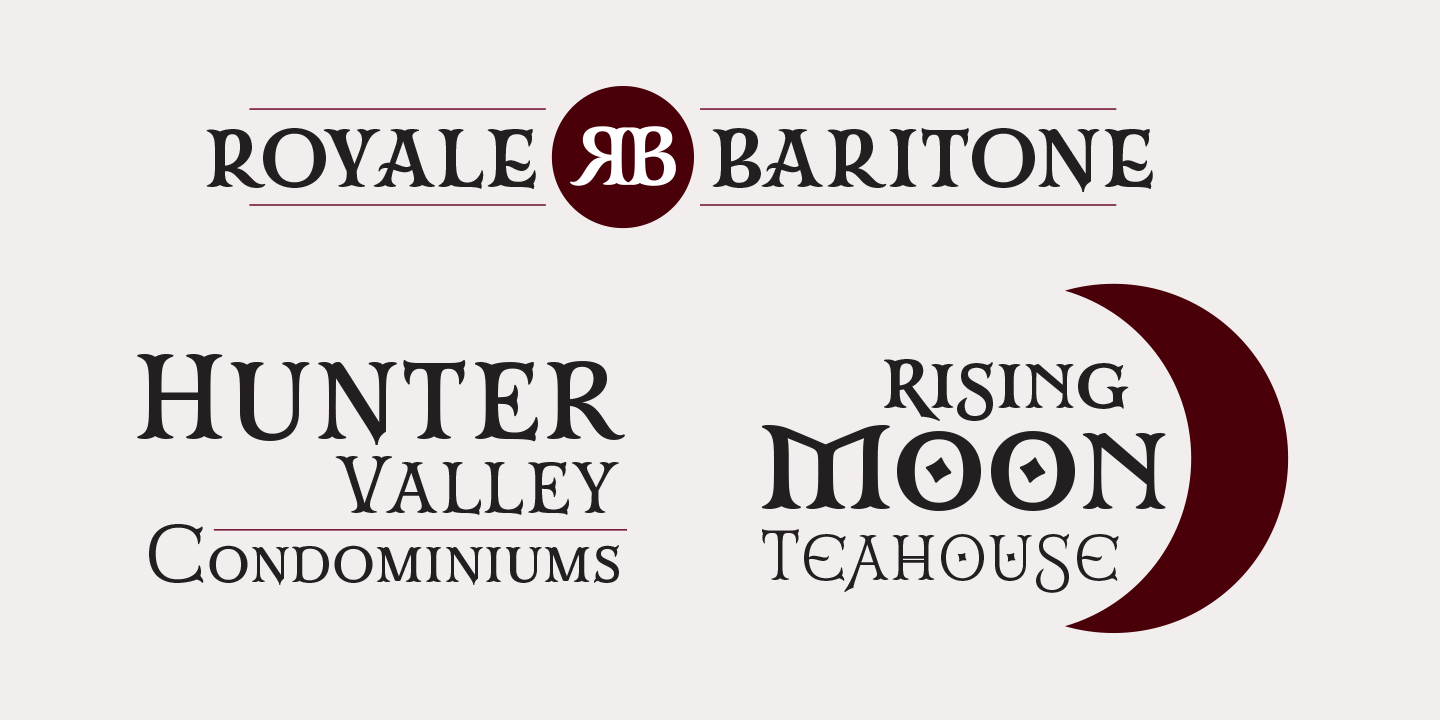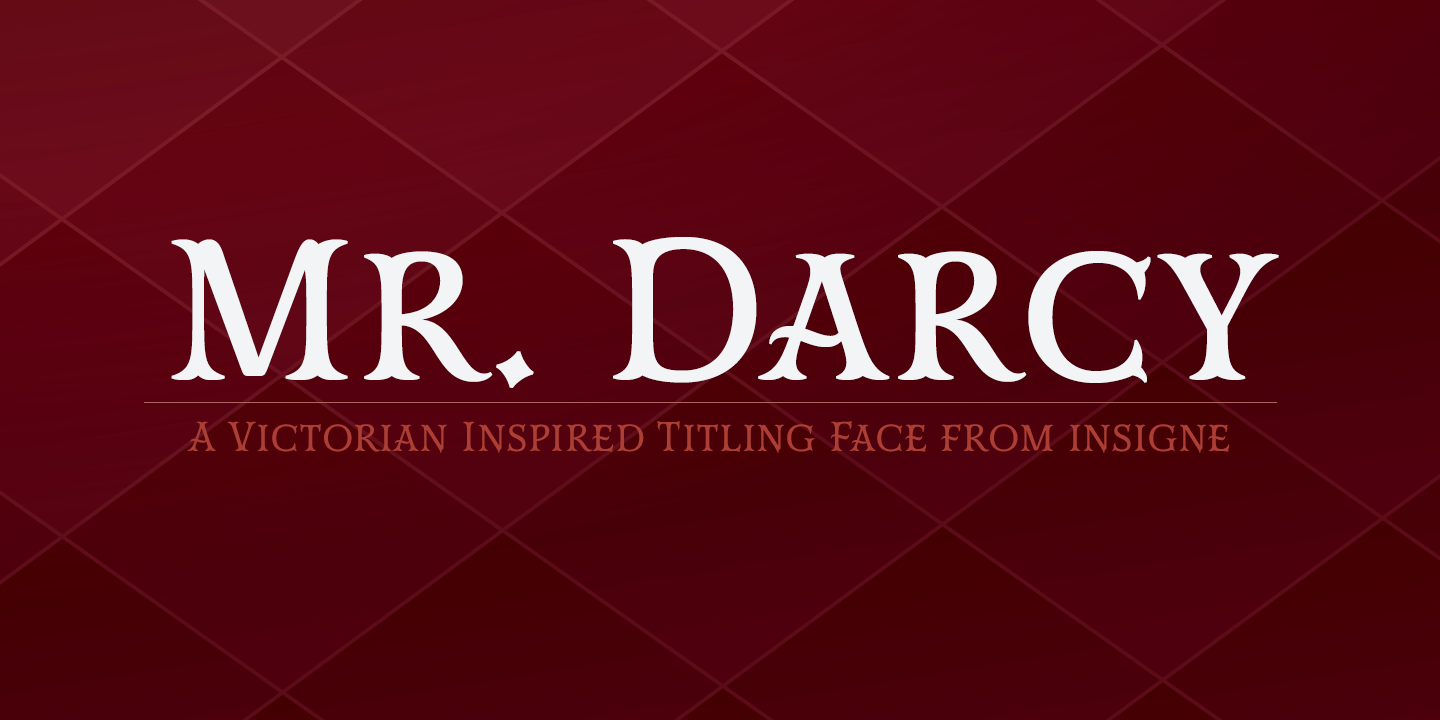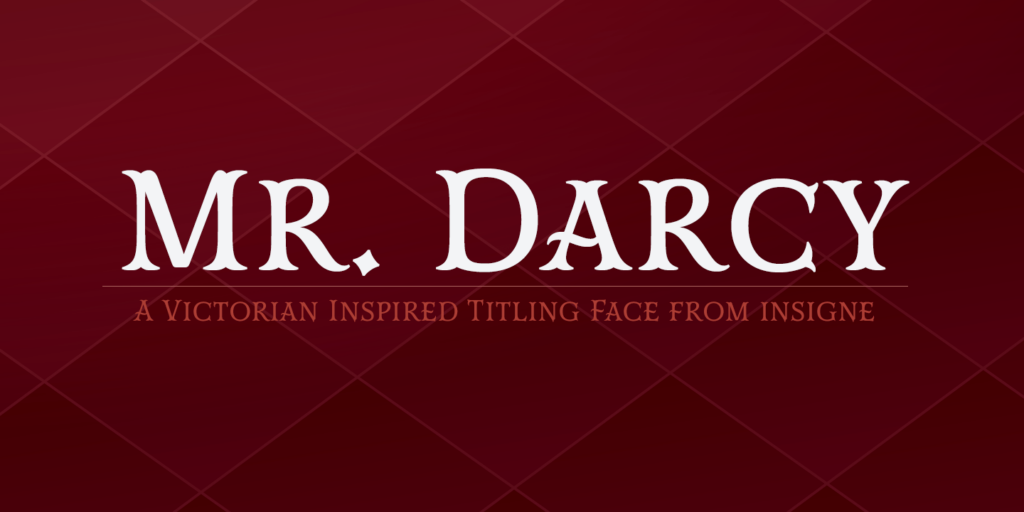
Mr Darcy
About Mr Darcy
Only occasionally are we graced with a font so pleasant and enjoyable to our company as the wonderfully amiable Mr. Darcy. The attractive elegance of the contemporary has been conveyed into Victorian times. Feel the call of modernity and friendliness…